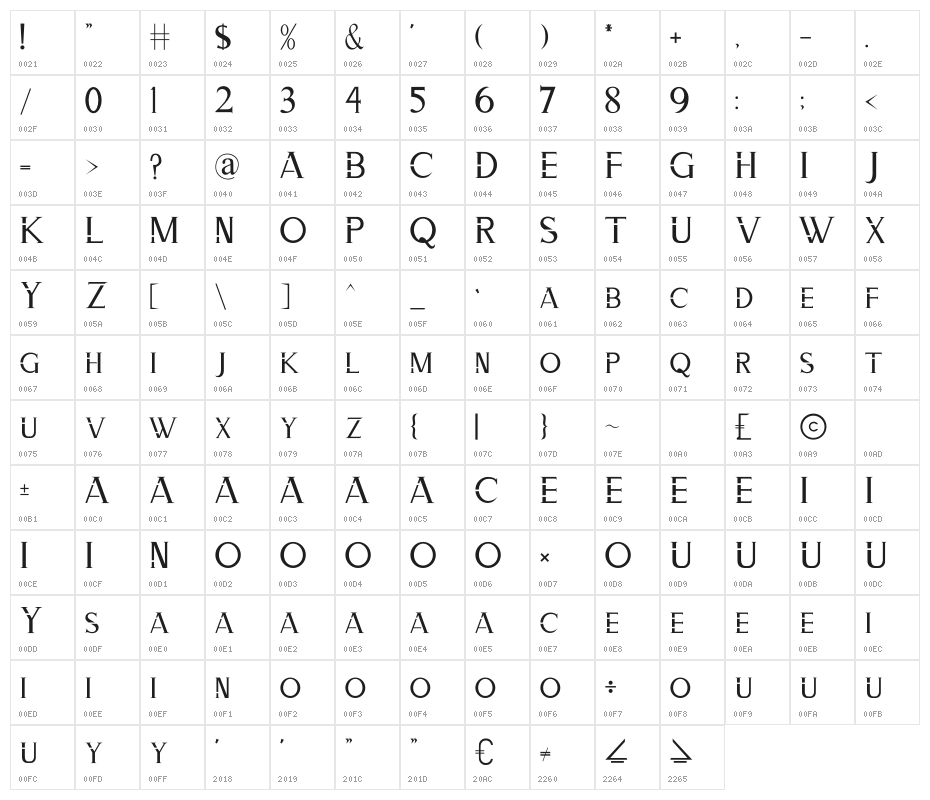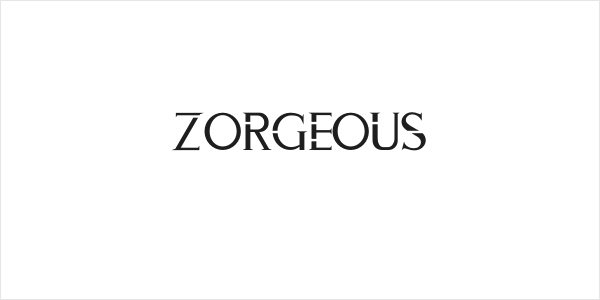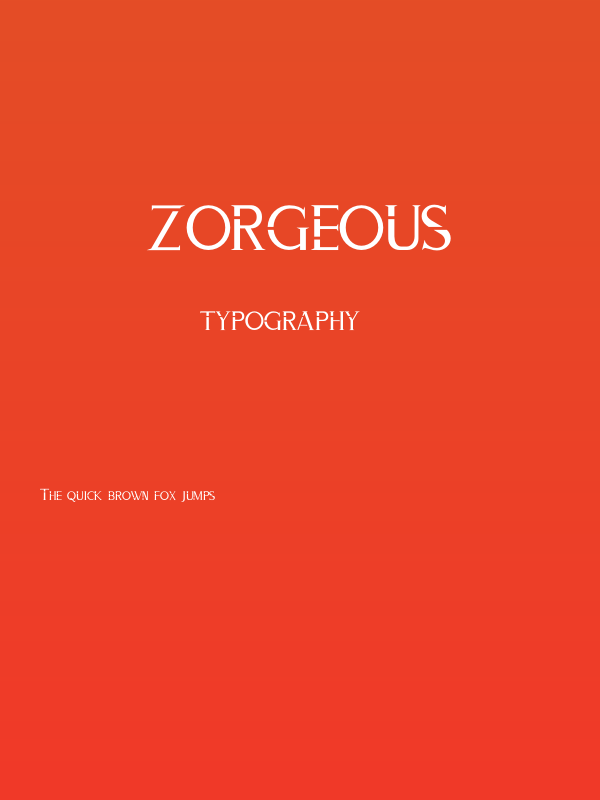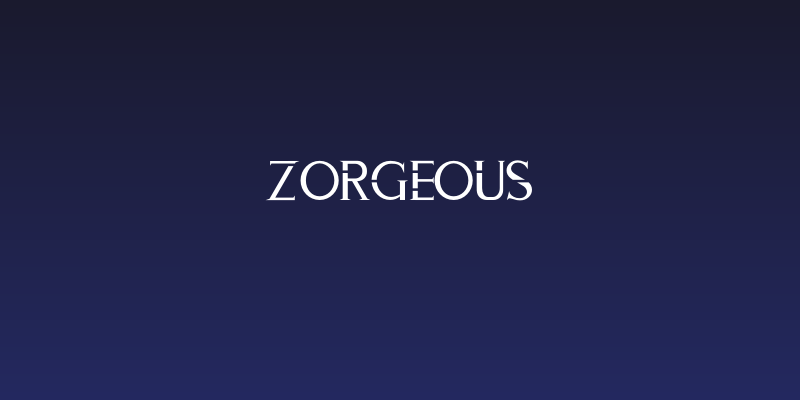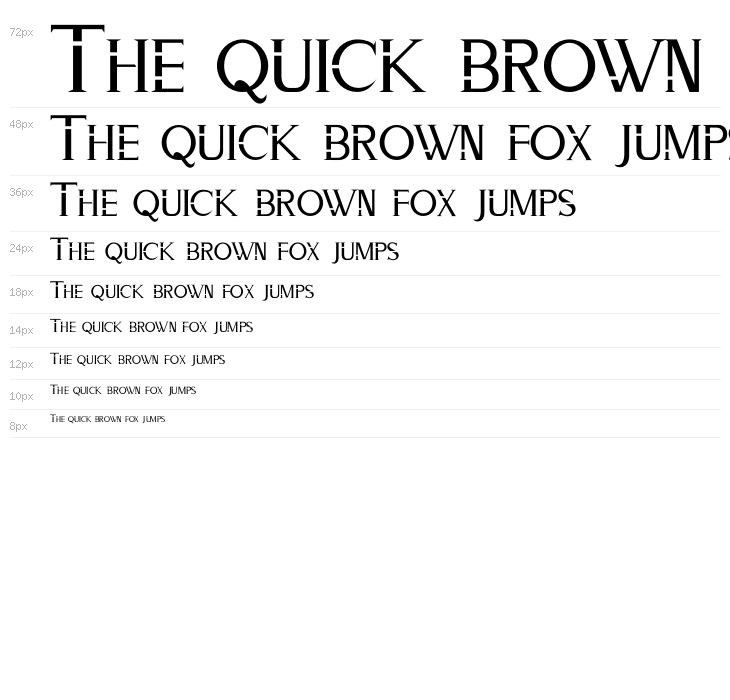
ZORGEOUS Font
ZORGEOUS Description
This font features a unique and modern design with a geometric flair. The uppercase letters are characterized by sharp angles and clean lines, creating a sense of elegance and sophistication. The lowercase letters maintain this geometric style, offering a consistent look throughout. Numbers and special characters are crafted with the same attention to detail, ensuring a cohesive appearance. The font's distinct style makes it suitable for a variety of creative projects, adding a touch of modernity and class.